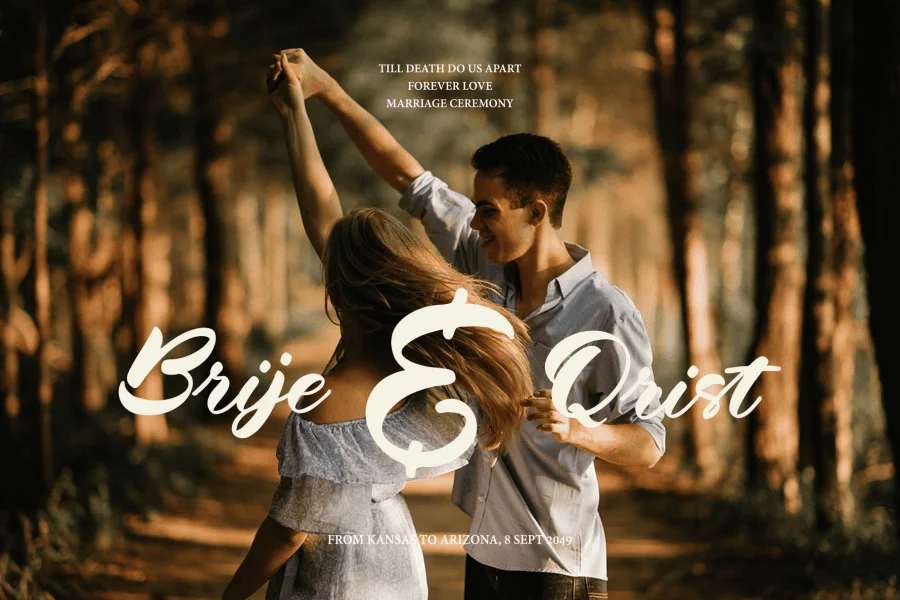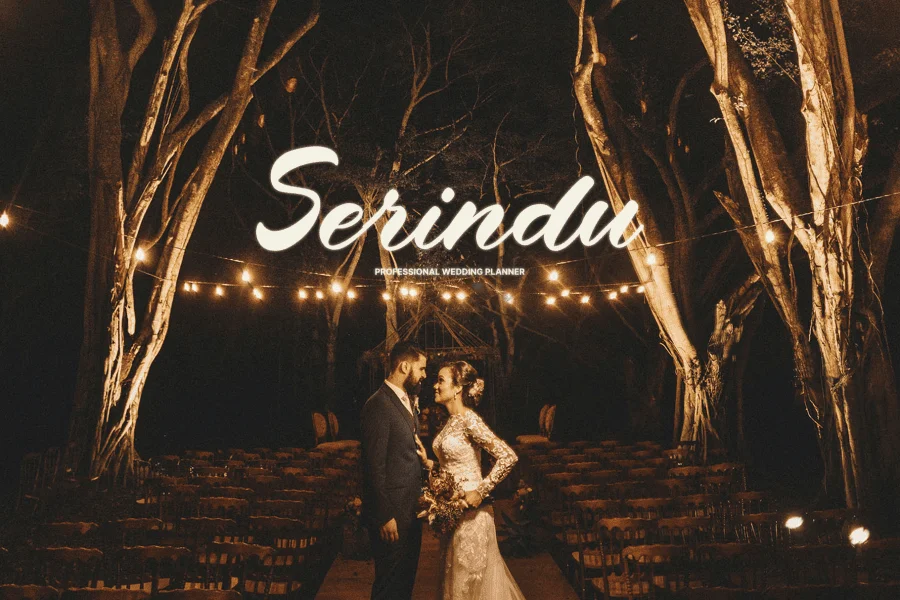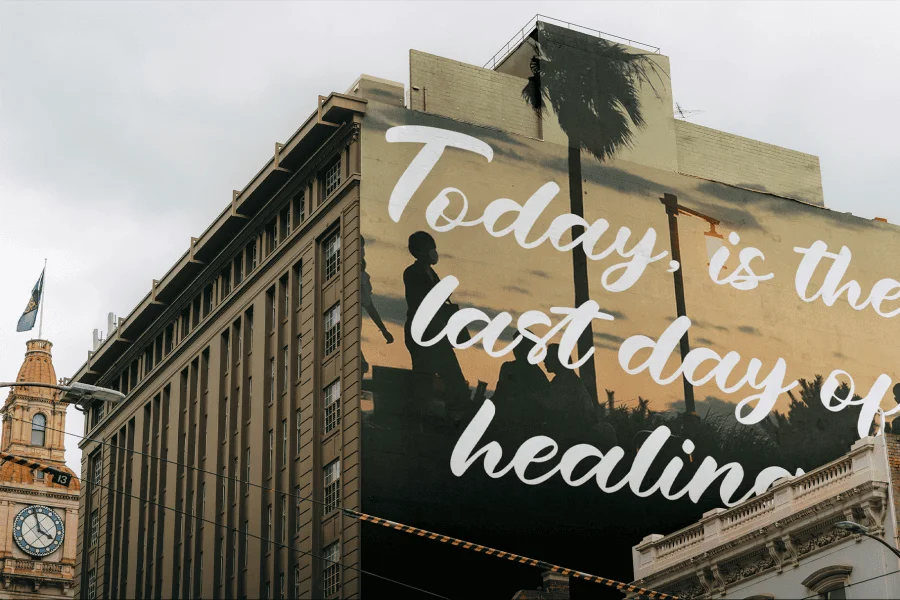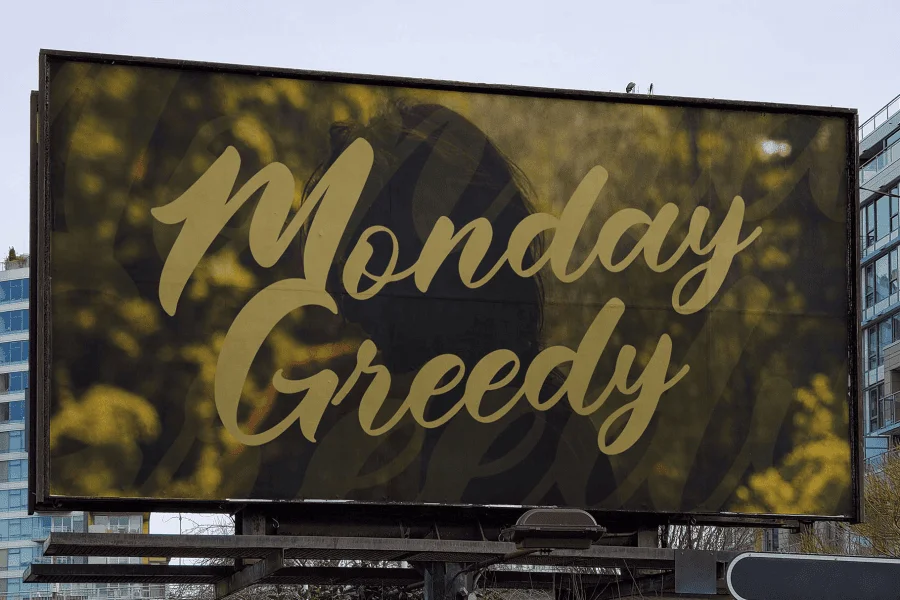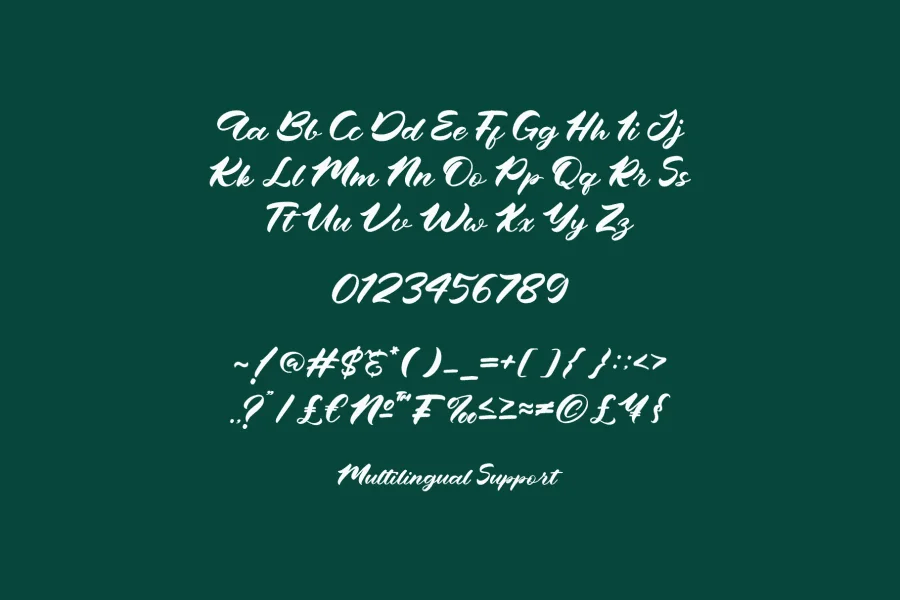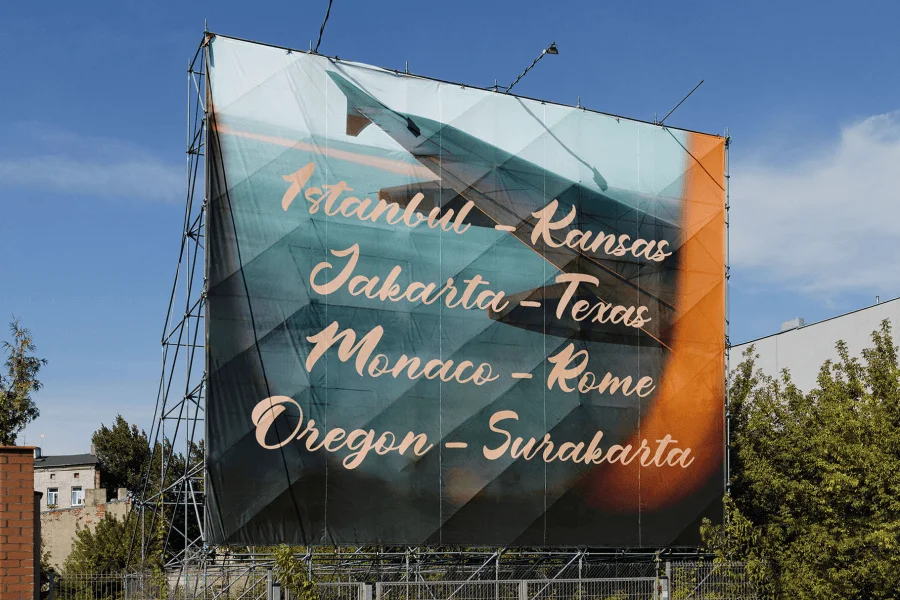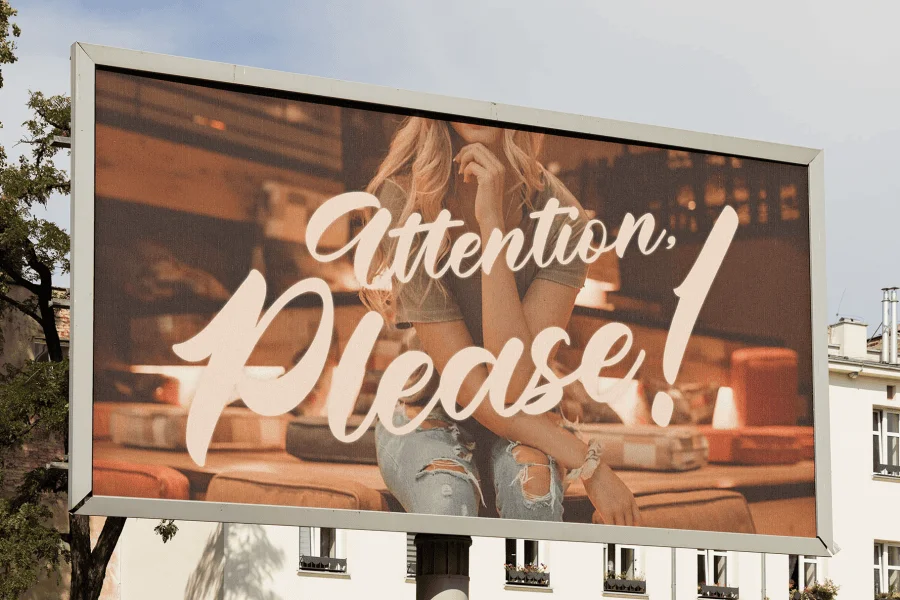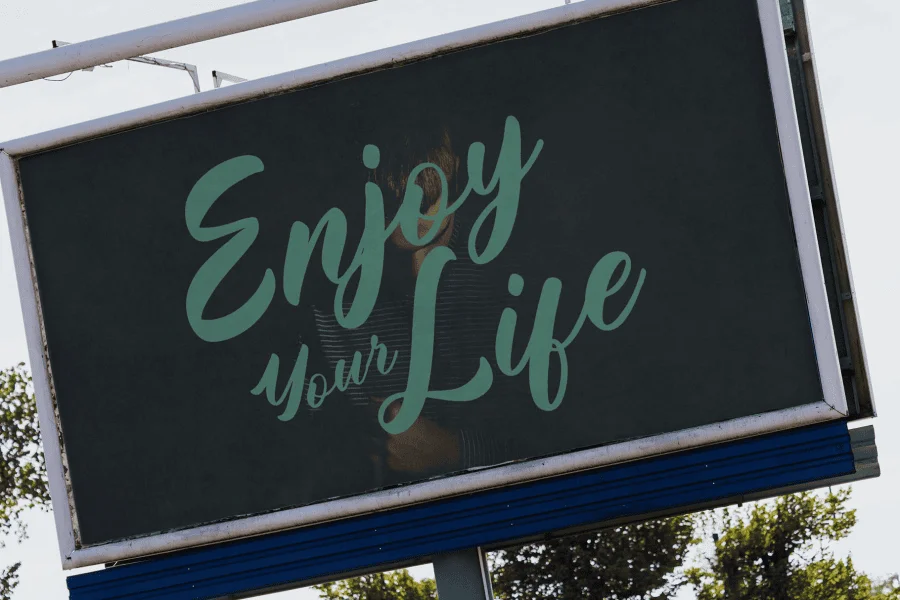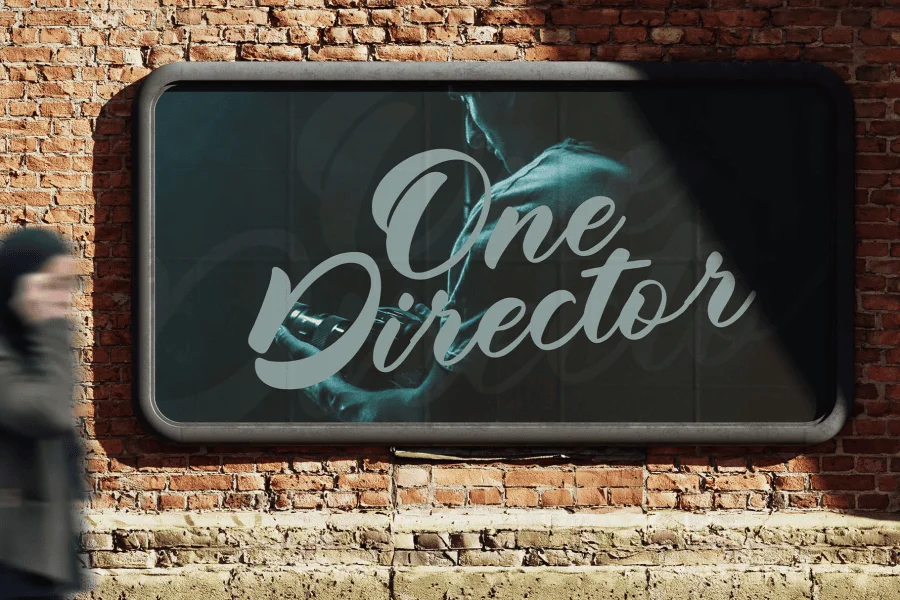
NCL BUJHO ORGNIST is brush script font. It’s fun, unique, stylish and modern display font. Masterfully designed to become a true favorite, this font has the potential to bring each of your creative ideas to the highest level! It was purposely crafted to be used in large point sizes, although it doesn’t lose its magic in small point sizes. It is perfect for headline, billboard, magazines, website, titles, poster, branding, t-shirt design, and logos. No matter the topic, this font will be an incredible asset to your fonts’ library, as it has the potential to elevate any creation. With this beautiful font, absolutely you can make your project stand out from the rest. See the previews above to get some inspiration on how to use them.
FEATURES
- Contains 361 Glyphs
- Uppercase, Lowercase, & Numeral
- Punctuation, Symbol & Ligatures
- Multilingual Support